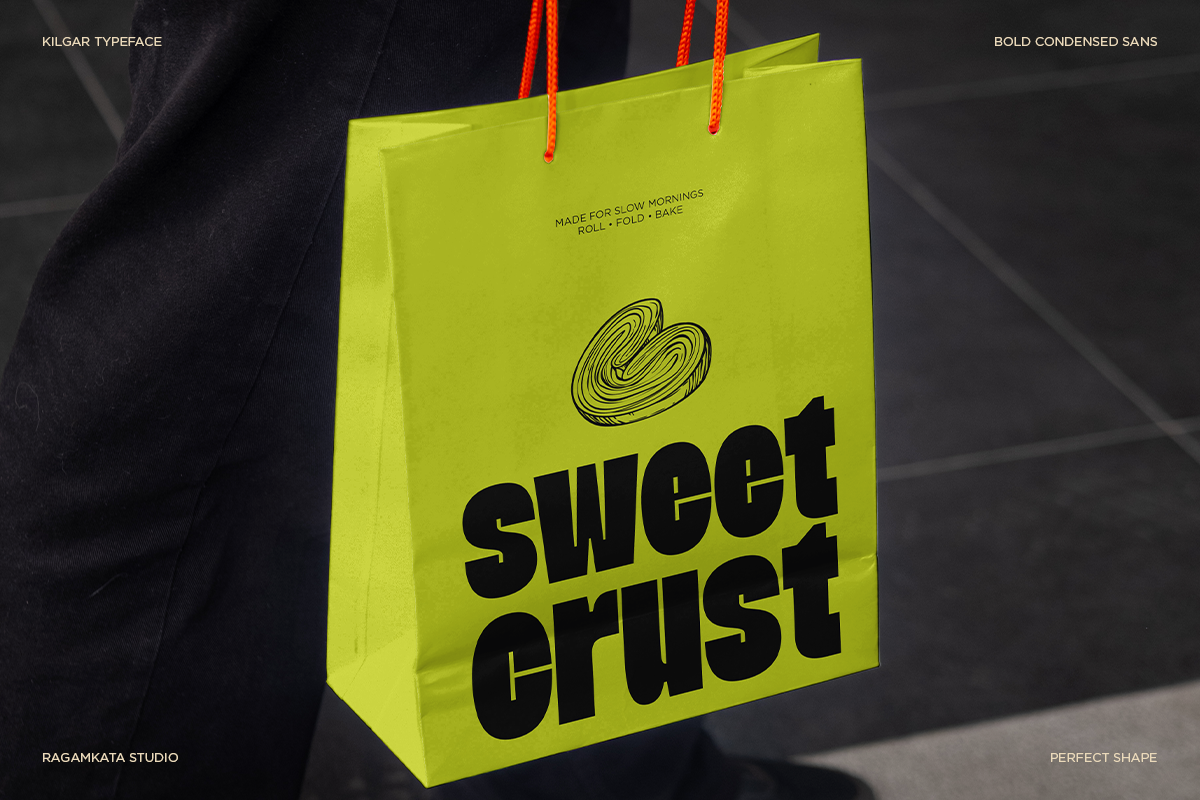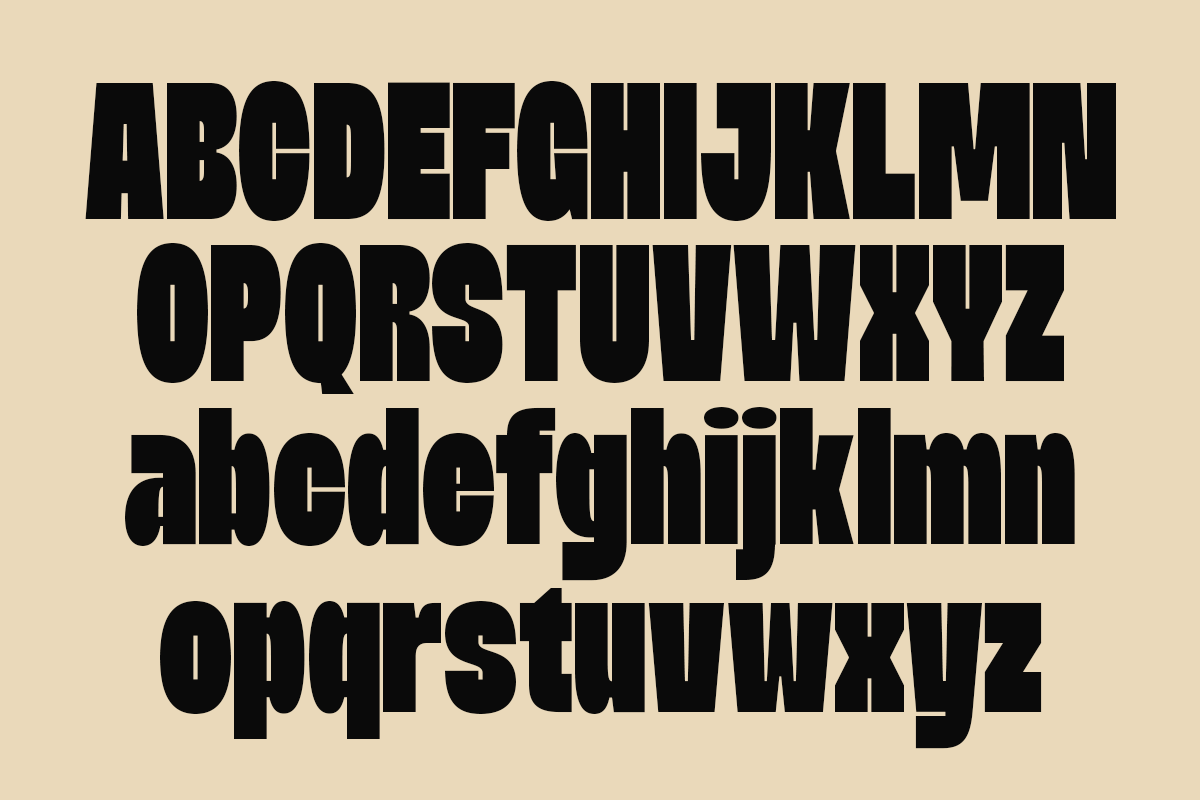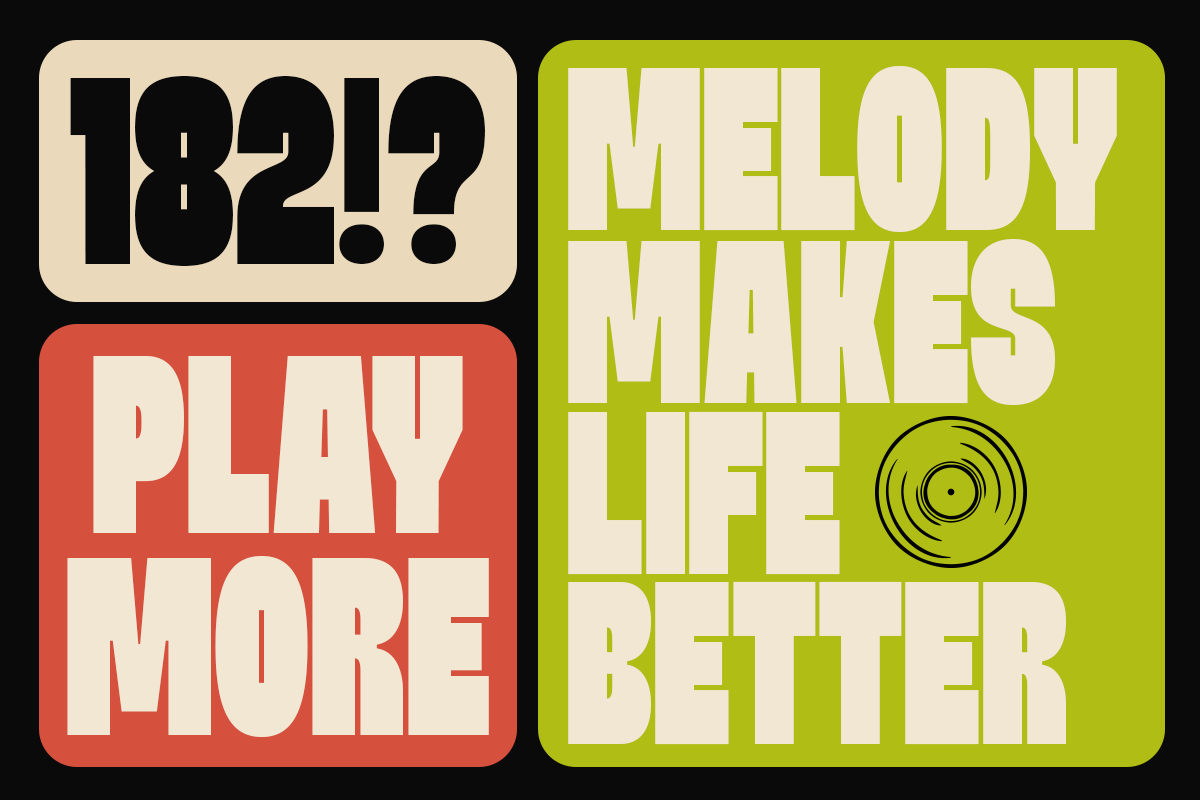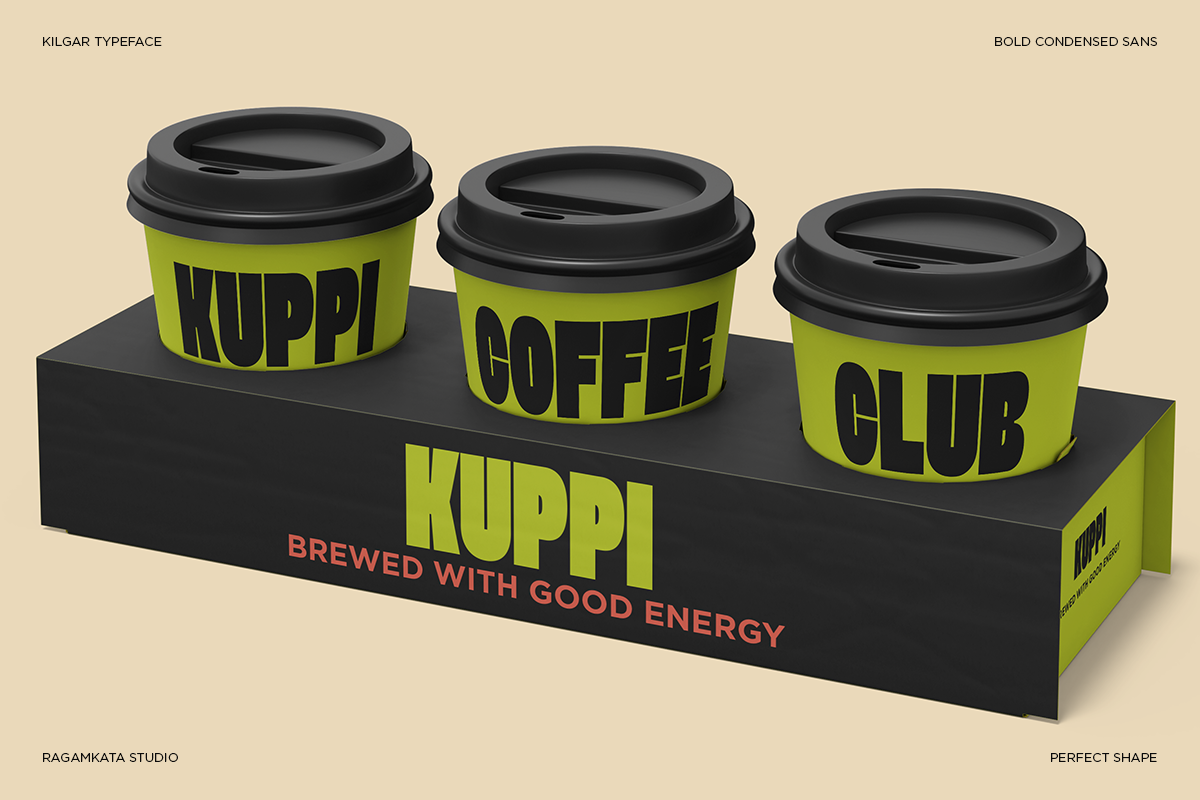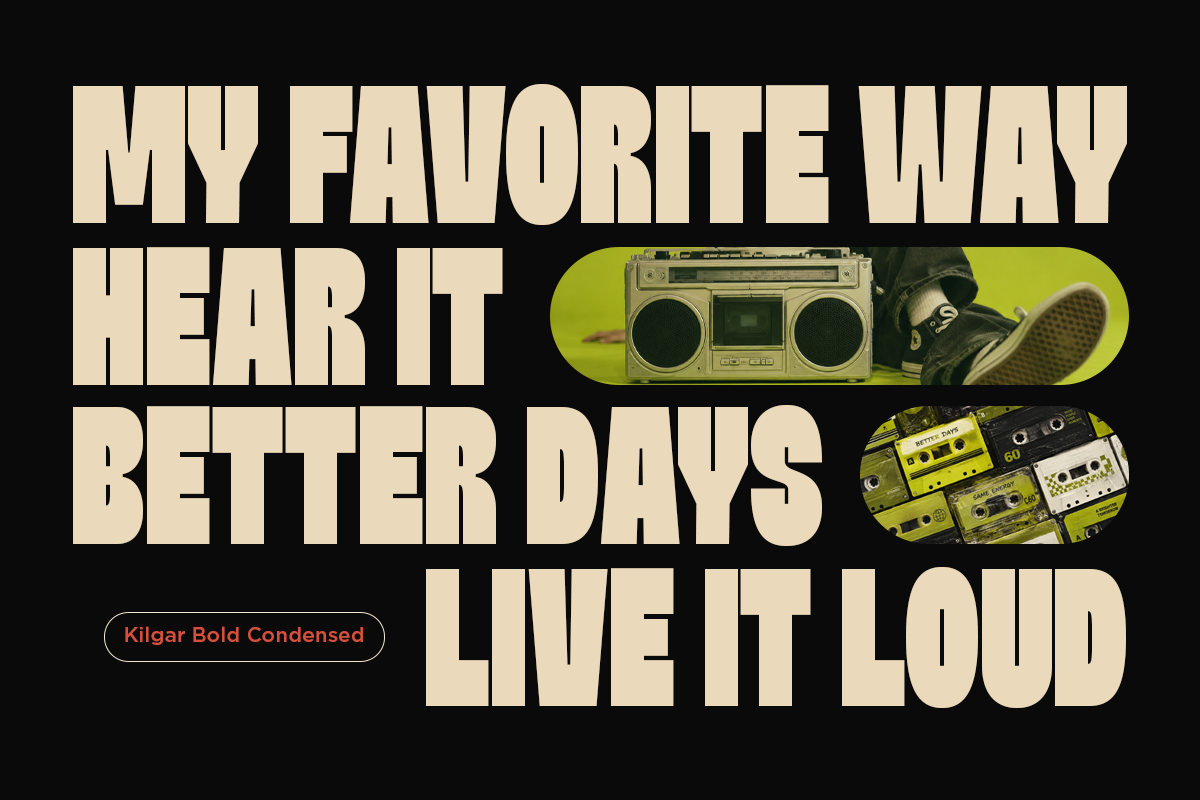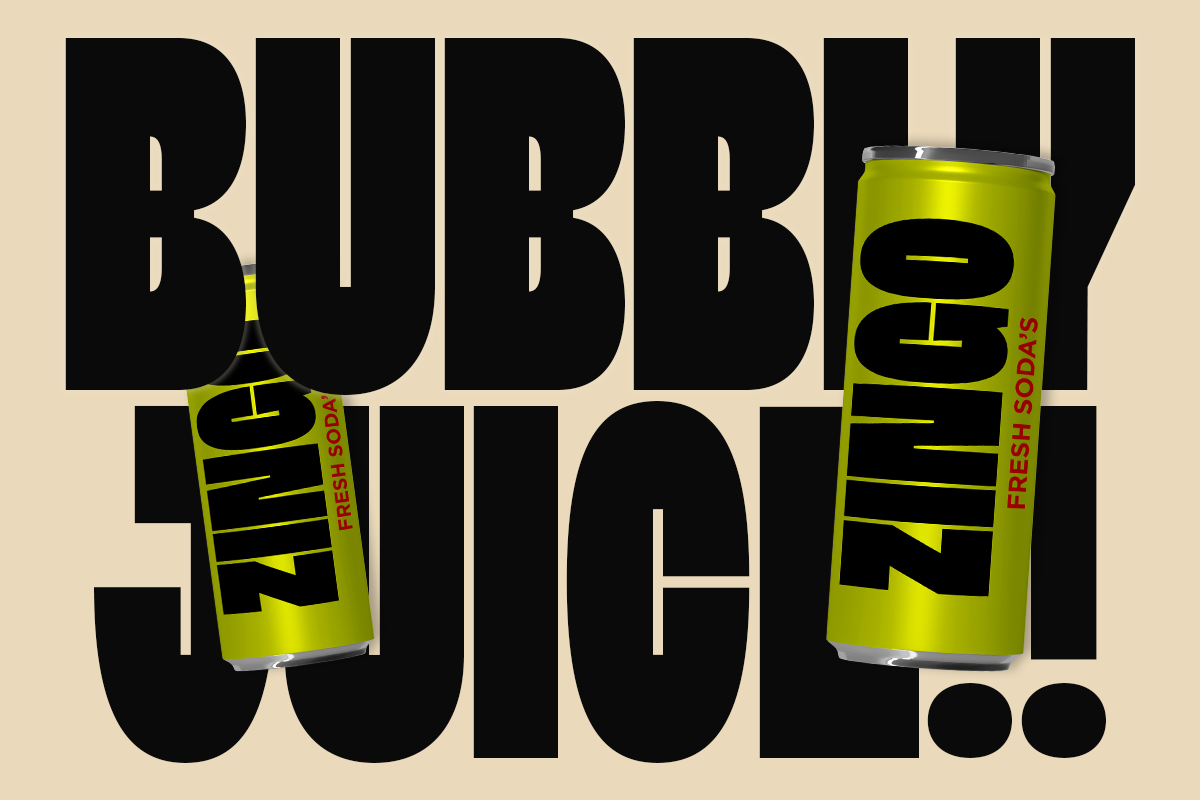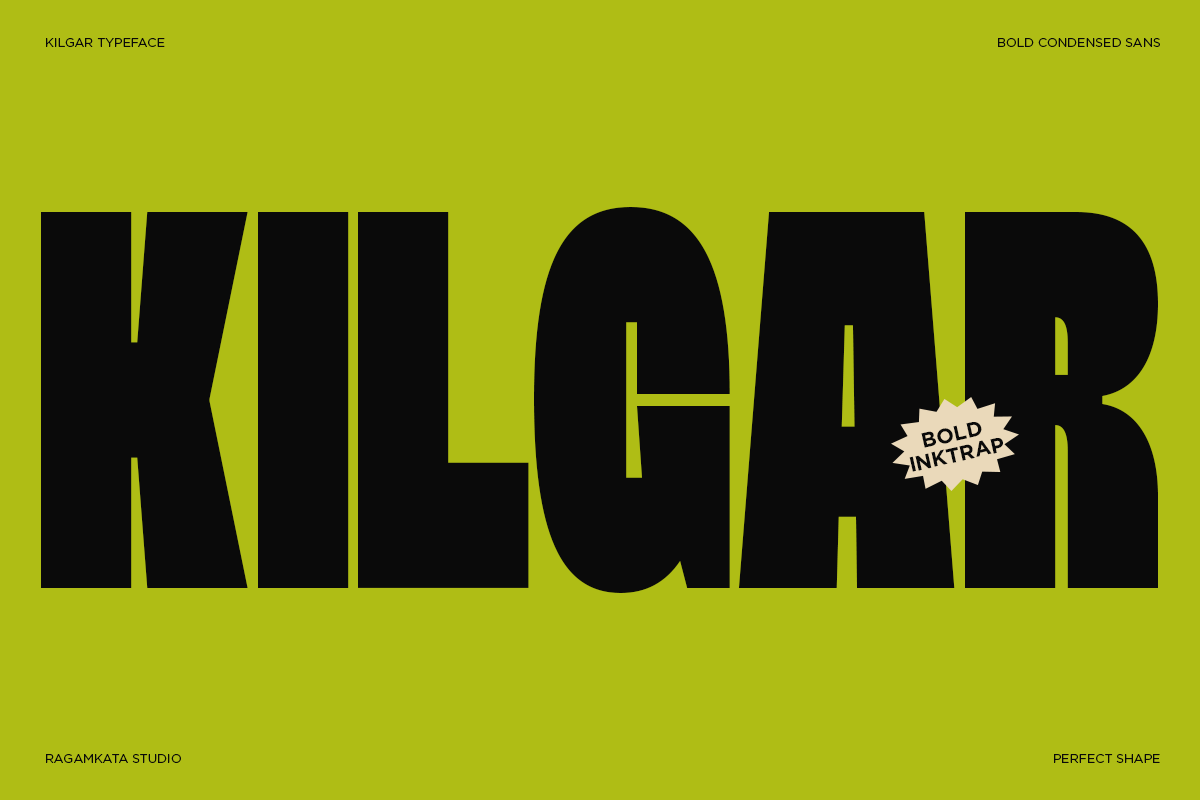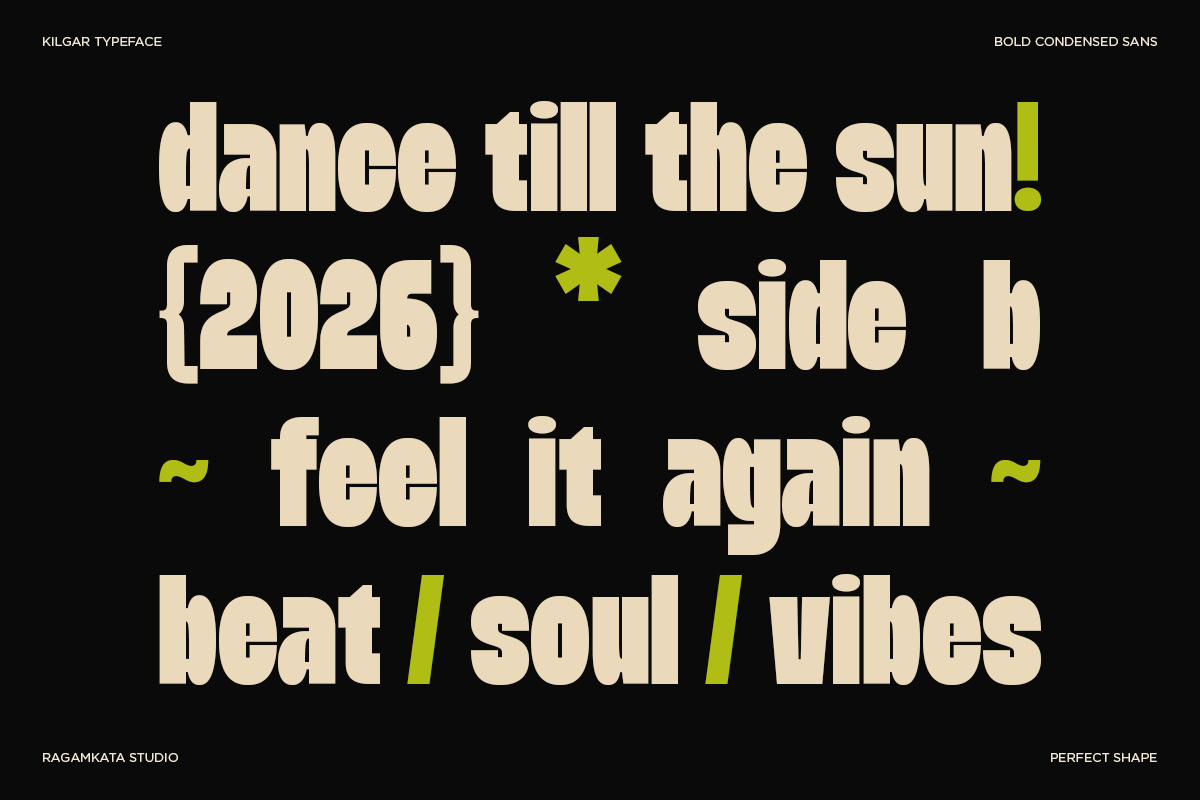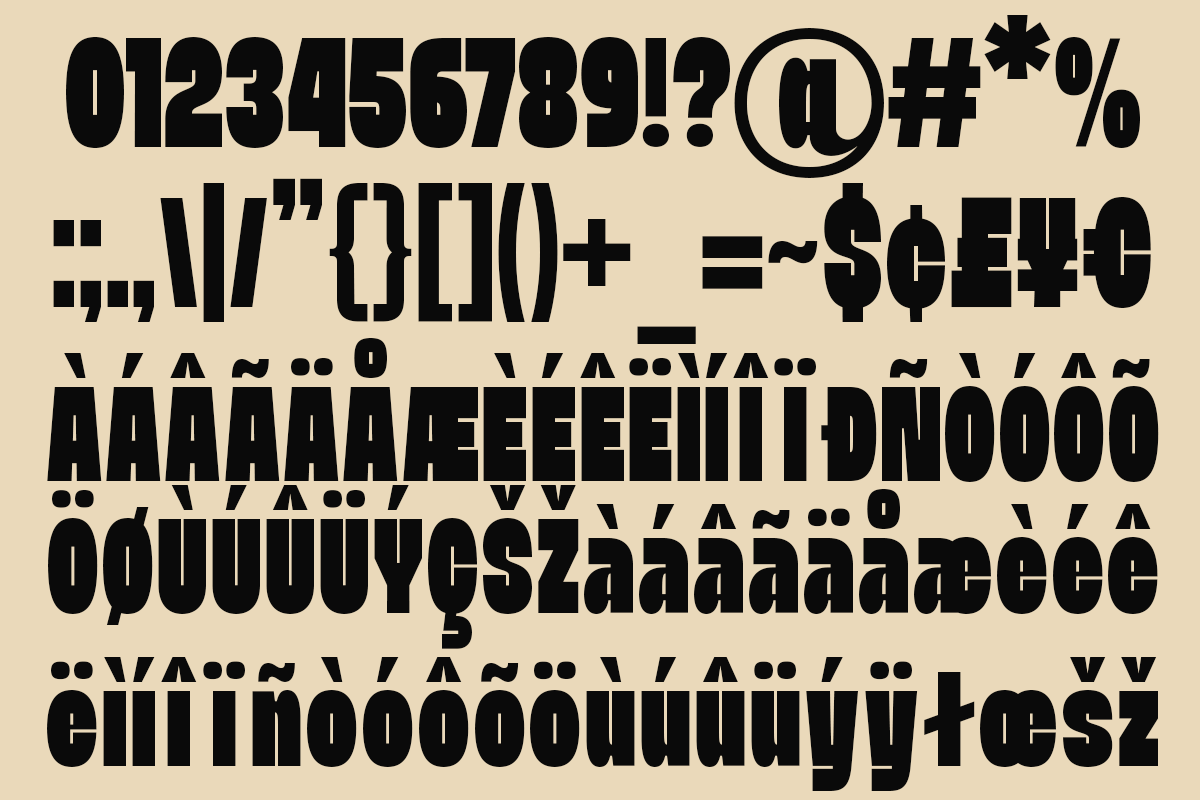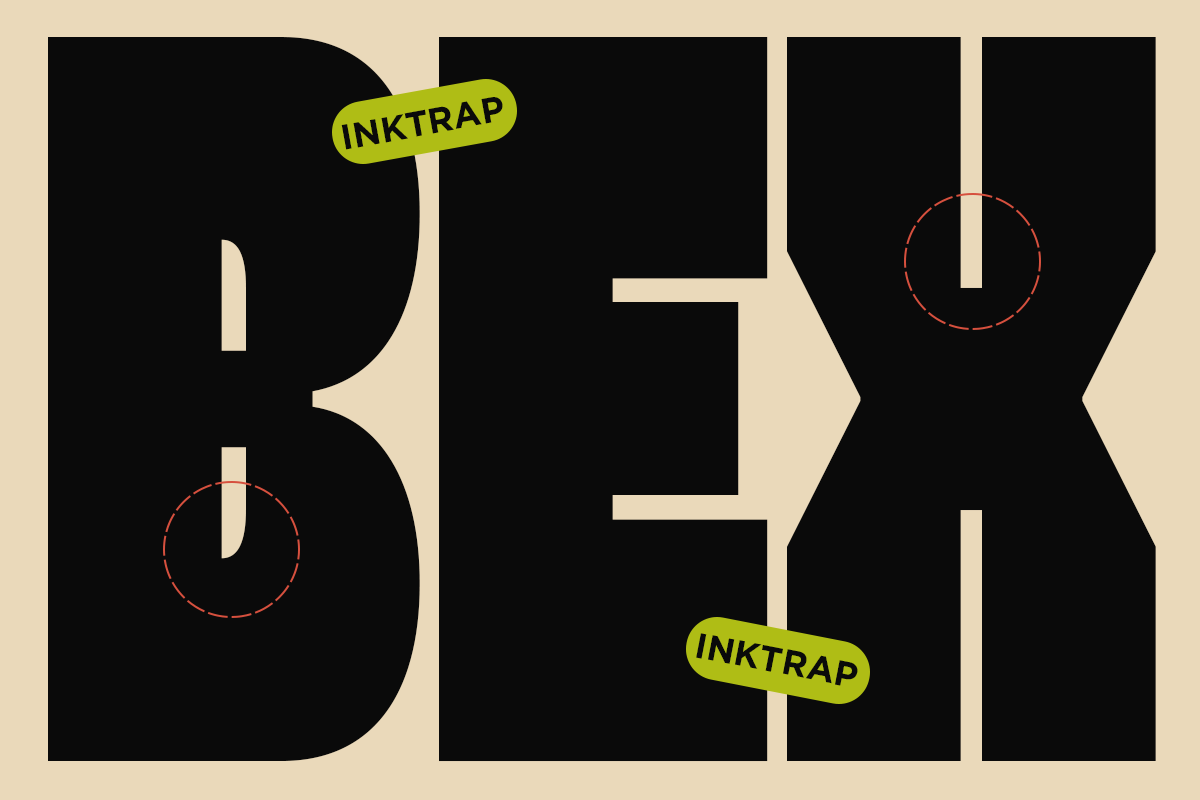
Kilgar - Heavy Bold Condensed Font
Kilgar is a bold condensed display font designed to give your typography a powerful, modern, and highly impactful presence. With its heavy letterforms, compact proportions, and distinctive geometric character, Kilgar is made for designs that need strong headlines and an unmistakable visual identity.
Perfect for posters, branding, packaging, editorial layouts, logos, advertising, social media graphics, album artwork, food and beverage designs, and promotional campaigns. Its condensed structure allows you to create large, attention-grabbing typography while maintaining an efficient and balanced composition.
Kilgar is especially suitable for streetwear brands, coffee shops, restaurants, music projects, lifestyle campaigns, fashion graphics, and contemporary visual identities. Its bold character works beautifully for both short headlines and expressive typography compositions.